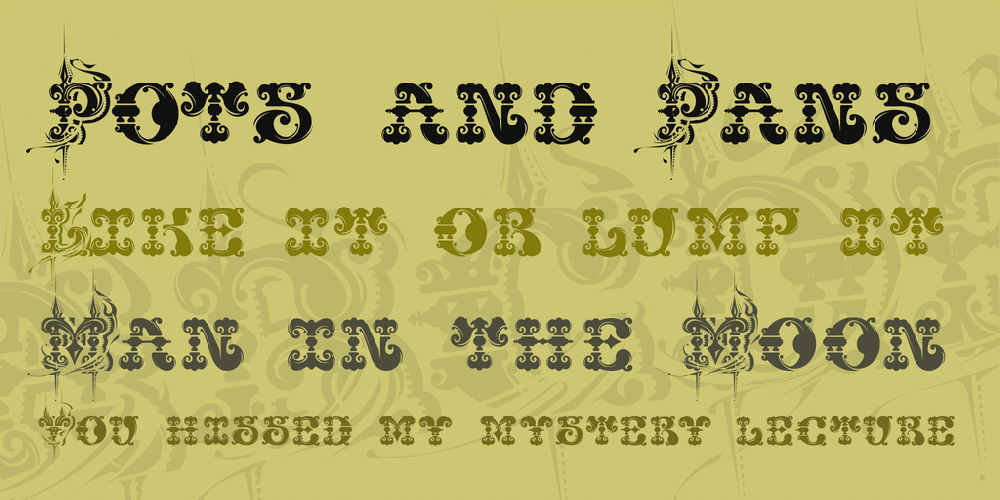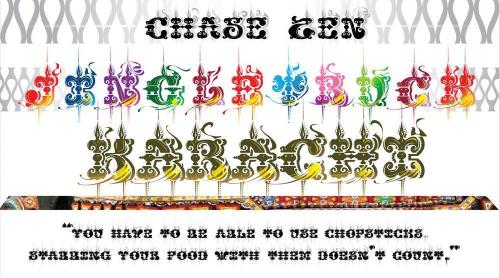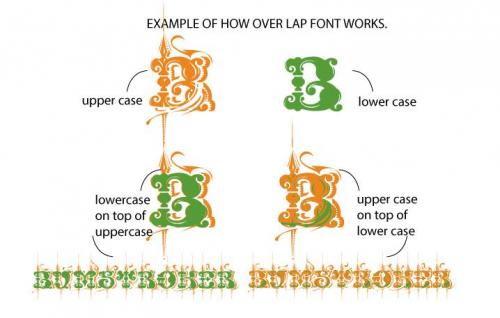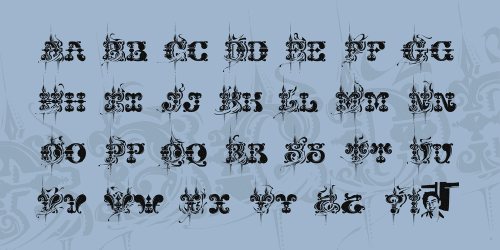
Chase Zen Jingletruck Karachi Font works in overlap. as in the upper case over laps the lower case. creating a snug fit. its a display font.
- Designer: Chung-Deh Tien